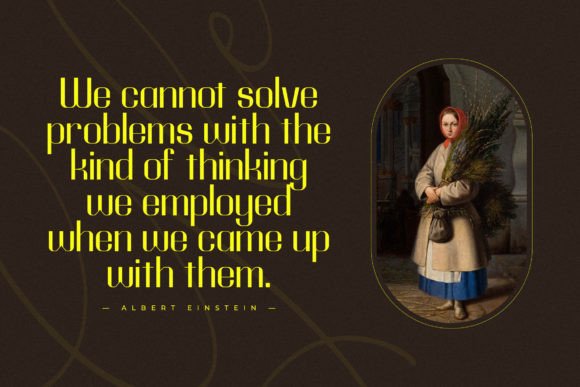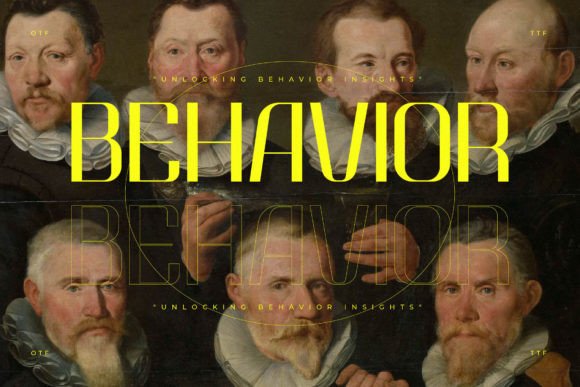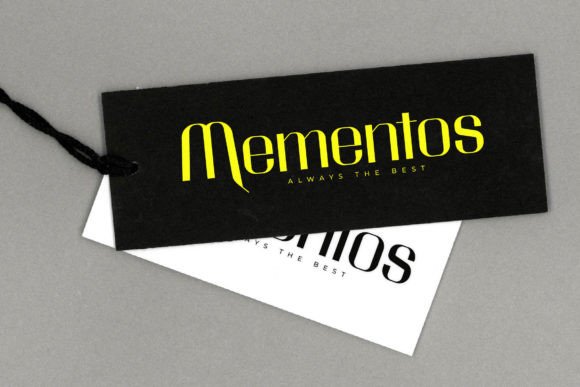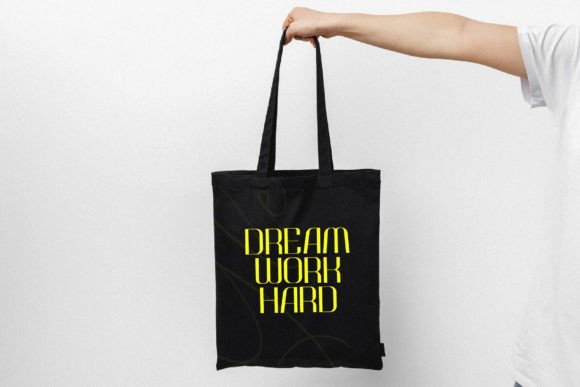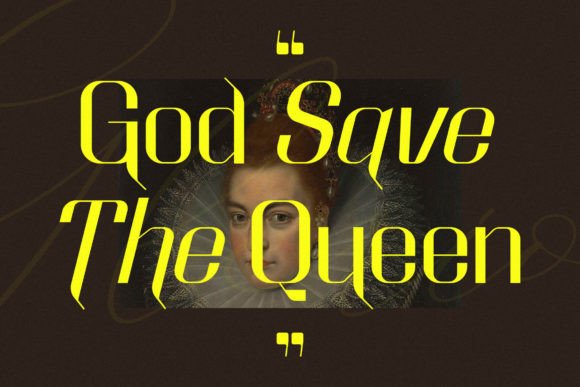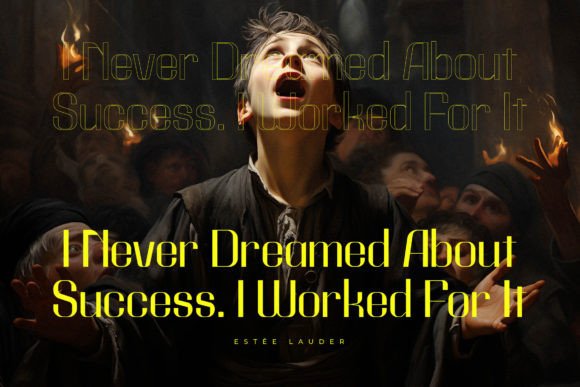
Introducing Gleriouh Font: A Modern Classic Serif Typeface
Are you tired of using the same old fonts for your design projects? Look no further! We’re proud to present Gleriouh Typeface, a beautifully crafted serif font by Storytype that’s sure to elevate your designs to the next level. With its unique blend of modern and classic elements, Gleriouh is the perfect choice for designers and crafters looking to add a touch of elegance and sophistication to their work.
A Modern Classic Serif Typeface
Gleriouh Font is a modern classic serif typeface that boasts a unique style and modern look. Its sleek lines, refined curves, and balanced proportions make it an ideal choice for a wide range of design applications. Whether you’re working on a luxury logo, book or movie title design, fashion brand, magazine, or clothing label, Gleriouh is sure to impress.
Perfect for Elegant and Luxury Designs
One of the standout features of Gleriouh Font is its ability to convey elegance and luxury. Its sophisticated design makes it perfect for high-end branding, packaging, and advertising. With Gleriouh, you can create stunning designs that exude refinement and poise. Whether you’re designing a logo for a luxury fashion brand or a title sequence for a high-end movie, Gleriouh is the perfect choice.
Key Features of Gleriouh Font
- Modern and Classic Design: Gleriouh boasts a unique blend of modern and classic elements, making it perfect for designers who want to create elegant and sophisticated designs.
- Serif Typeface: Gleriouh is a serif typeface, which gives it a touch of elegance and refinement. The serifs add a level of sophistication to the font, making it perfect for high-end designs.
- Highly Versatile: Gleriouh is a highly versatile font that can be used for a wide range of design applications, including logos, titles, headings, and body text.
Use Gleriouh Font for:
- Elegant Logos: Create stunning logos for luxury brands, fashion labels, and high-end businesses.
- Book and Movie Titles: Use Gleriouh to create eye-catching title sequences for books, movies, and TV shows.
- Fashion Brands: Perfect for fashion brands, clothing labels, and accessory designers.
- Magazines and Newspapers: Use Gleriouh for magazine and newspaper titles, headings, and body text.
- Lettering and Quotes: Create beautiful lettering and quotes using Gleriouh Font.
Why Choose Gleriouh Font?
With so many fonts available, why choose Gleriouh? Here are just a few reasons why Gleriouh stands out from the crowd:
- Unique Design: Gleriouh boasts a unique design that’s sure to make your designs stand out.
- Elegant and Sophisticated: Gleriouh conveys elegance and sophistication, making it perfect for high-end designs.
- Highly Versatile: Gleriouh can be used for a wide range of design applications.
In conclusion, Gleriouh Font is a beautifully crafted serif typeface that’s perfect for designers and crafters looking to add a touch of elegance and sophistication to their work. With its unique design, elegant and sophisticated feel, and high versatility, Gleriouh is sure to become a go-to font for designers around the world. So why wait? Download Gleriouh Font today and start creating stunning designs that exude refinement and poise.